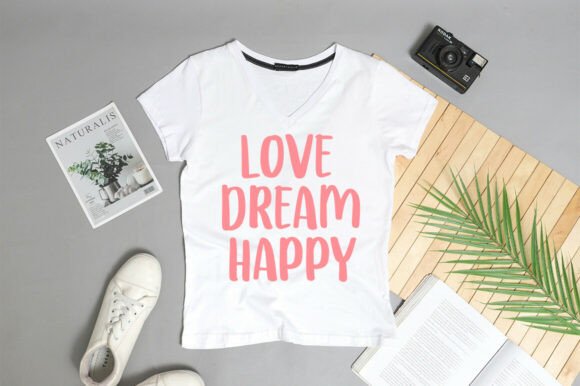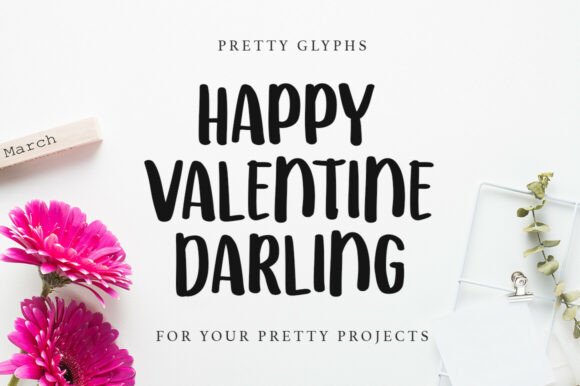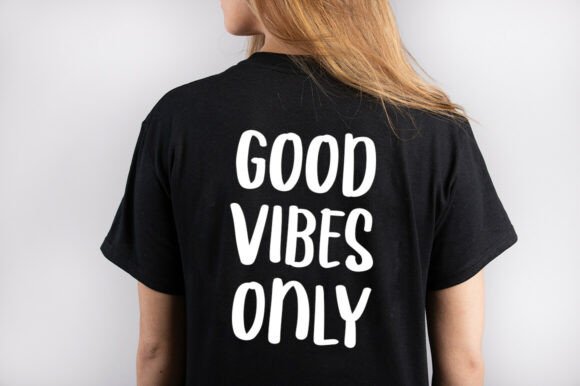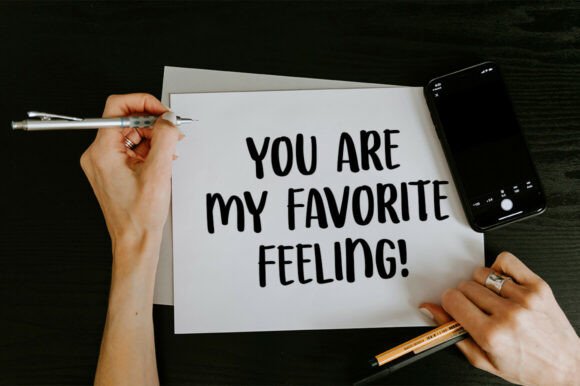
Introduction to Meadow Font
Have you ever been working on a creative project, pouring your heart and soul into it, only to realize that the perfect design element is missing? The one thing that could elevate your entire concept and make it truly unforgettable? For many designers, this moment is a constant struggle. But what if we told you that the solution lies in the art of handwriting? Introducing Meadow Font, a bold, expressive, and effortlessly fashionable typeface that captures the essence of real-life brush strokes.
This meticulously crafted font is not just a design resource, but a game-changer for any creative project. With its vibrant dynamism and unmistakable handmade texture, Meadow Font adds a unique touch to any design, making it stand out from the crowd. And the best part? It’s available for free download, complete with a transparent background, making it the perfect addition to any high-quality design.
Key Features of Meadow Font
- High-quality design resource ideal for creative projects and personal use.
- Unique, hand-drawn style adds a personal touch to any creative project, making it an excellent design resource.
- Can be easily scaled and manipulated to suit the needs of your design project, offering flexibility and versatility.
- Perfect for designers, artists, and writers looking for a high-quality, free design resource to enhance their creative work.
Honest Review: Meadow Font
I recently had the chance to work with the Meadow Font, and I must say it’s been a pleasant experience. This font is perfect for any creative project that requires a natural, earthy feel. Its transparent background makes it easy to use in various design scenarios.
- High-quality design: The Meadow Font is beautifully crafted, with smooth lines and a natural texture.
- Versatility: The font is suitable for a wide range of creative projects, from branding to editorial design.
- Limited language support: The font may not support all languages, which could be a limitation for designers working on international projects.
- No bold or italic variations: While the font is beautiful, it would be great to have bold and italic variations for added emphasis.
Overall, I’m impressed with the Meadow Font. Its high-quality design and free download make it a valuable resource for designers. While it has some limitations, it’s still a great choice for creative projects that require a natural, earthy feel.
Meadow Font is a high-quality, free download design resource ideal for creative projects. With its transparent background, it’s perfect for adding a touch of elegance to your designs.
Tips for Getting the Most Out of Meadow Font
To get the most out of Meadow Font, use it for:
- Branding and marketing materials.
- Event graphics and signage.
Meadow Font is commonly used in:
- Wedding and event planning.
- Branding and marketing.
- Graphic design and digital art.
Yes, the Meadow Font features a transparent background, making it ideal for designers who want to create high-quality designs with a clean and minimalist look. This feature also allows for easy layering and composition in design software.
Is Meadow Font suitable for large-scale designs?
Yes, the Meadow Font is designed to be scalable and suitable for large-scale designs. Its high-quality vector format ensures that the font remains crisp and clear even at large sizes, making it perfect for billboards, signage, and other large-format designs.